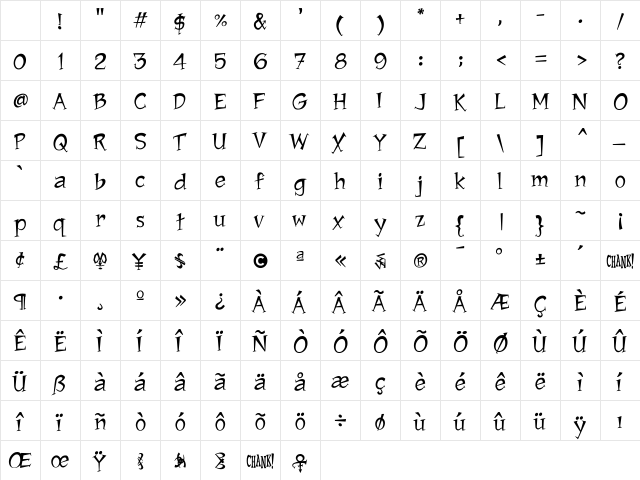
Complete Jawbox Regular glyph index. Displaying only characters natively supported by Jawbox Regular font.
Jawbox is a composed and adaptable typeface that performs quietly and consistently across a wide range of design contexts.